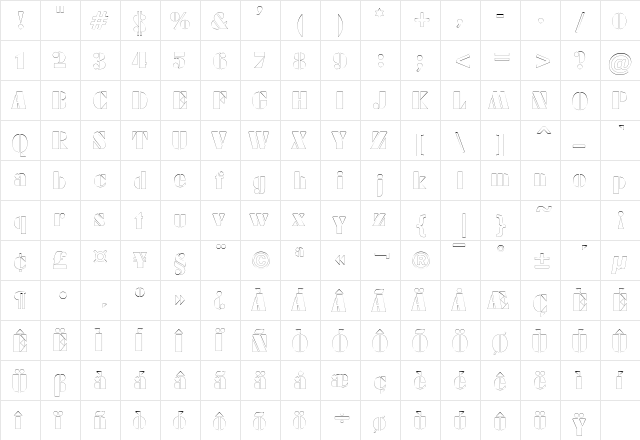
ArmyBlackOutline Plain
Design Context for ArmyBlackOutline Typeface
ArmyBlackOutline draws on military and industrial lettering traditions, with forms that communicate strength and precision.
A strong choice for security brands, outdoor gear, and high-stakes visual communication.
Font Pairing: Use alongside a condensed or geometric sans for supporting copy — keep the pairing bold, functional, and free of ornament.
Pro Tip: Try ArmyBlackOutline in all-caps for the most authentic military signage feel. It pairs well with stark, minimal layouts and muted colour palettes.